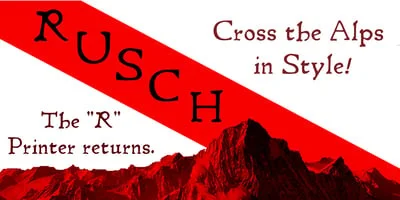
Rusch Font
Rusch Font is ideal for modern branding, contemporary packaging, urban design projects, architectural signage, progressive publications, creative agencies, and sophisticated visual communications. This dynamic typeface brings energetic movement and contemporary flair to forward-thinking design applications.
Rusch Font is exciting because it captures the essence of dynamic movement with its energetic letterforms that convey speed and modernity while maintaining exceptional readability and progressive appeal across contemporary design applications.
The Rusch Font family includes multiple weights and stylistic variations that reflect the kinetic energy of modern design. This dynamic collection provides designers with energetic options for creating memorable and progressively engaging brand experiences.
Rusch Font offers designers access to a dynamically crafted typeface that embodies the energy and forward momentum of contemporary design culture. This energetic font features carefully designed letterforms with kinetic details that create immediate associations with movement, progress, and modern sophistication. The typeface showcases dynamic proportions and contemporary aesthetics that enhance progressive communications while maintaining professional functionality and broad accessibility. Its energetic character makes it particularly suitable for modern brands and progressive organizations that require typography capable of conveying momentum, innovation, and contemporary energy. Rusch Font delivers exceptional dynamic impact for applications where static fonts feel inadequate for energetic communications and progressive brand positioning. The font's kinetic appeal and modern aesthetic make it an essential tool for designers working on projects that require typographic expression of movement, contemporary energy, and progressive sophistication that resonates with audiences seeking dynamic experiences and forward-thinking visual communication.